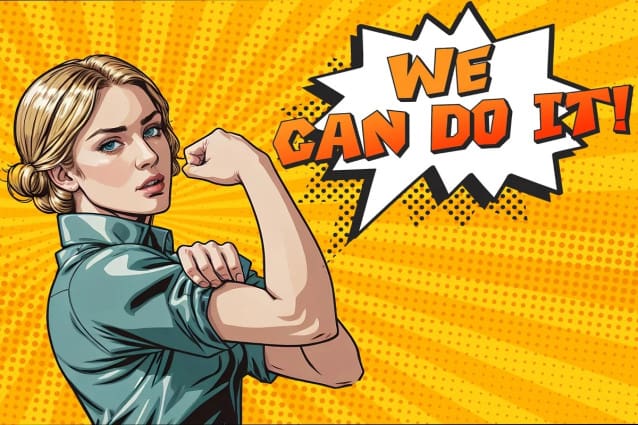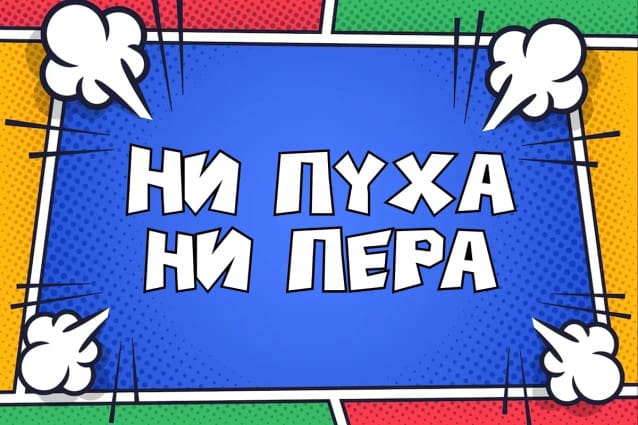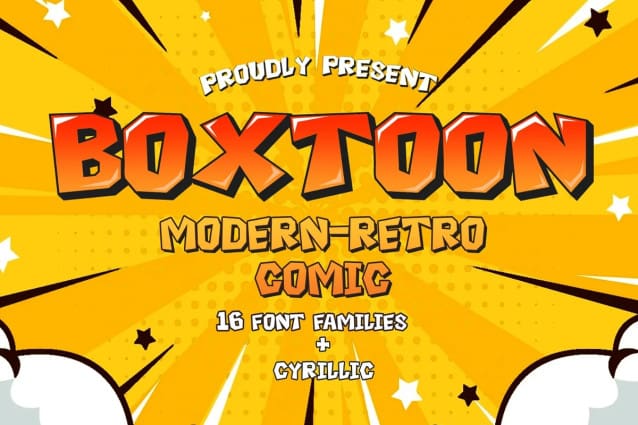
Boxtoon Display Font
Boxtoon Display Font, a lively comic font with a bold, modern-retro twist. Bursting with fun, it seamlessly blends the nostalgia of classic cartoons with a contemporary edge. Boasting 16 versatile styles, this multilingual marvel supports Cyrillic characters. Perfect for dynamic displays, comics, posters, book covers, and playful designs like t-shirts, games, and digital crafts. Embrace the whimsical charm that Boxtoon brings to kid’s books and beyond—an all-in-one font for your creative adventures!